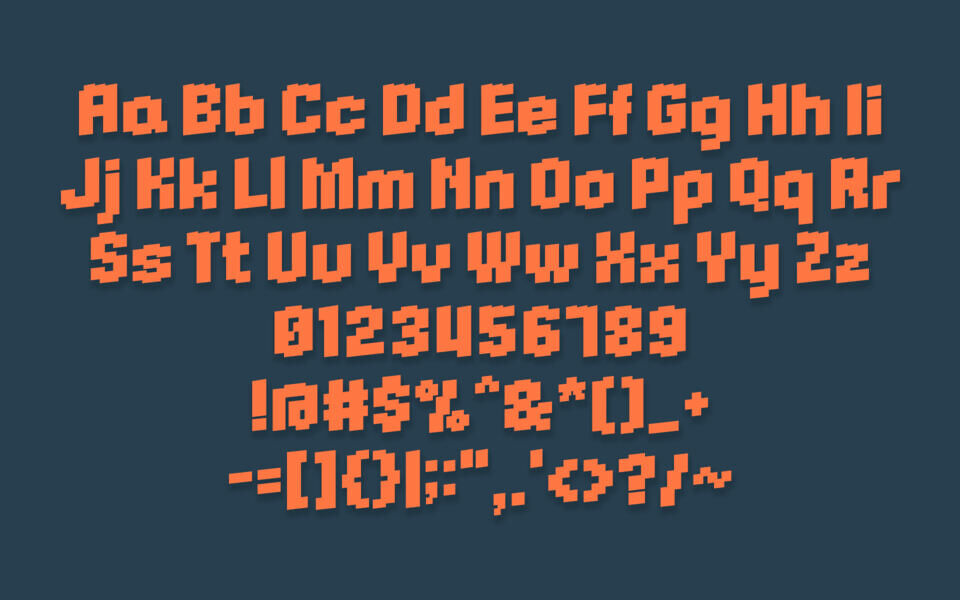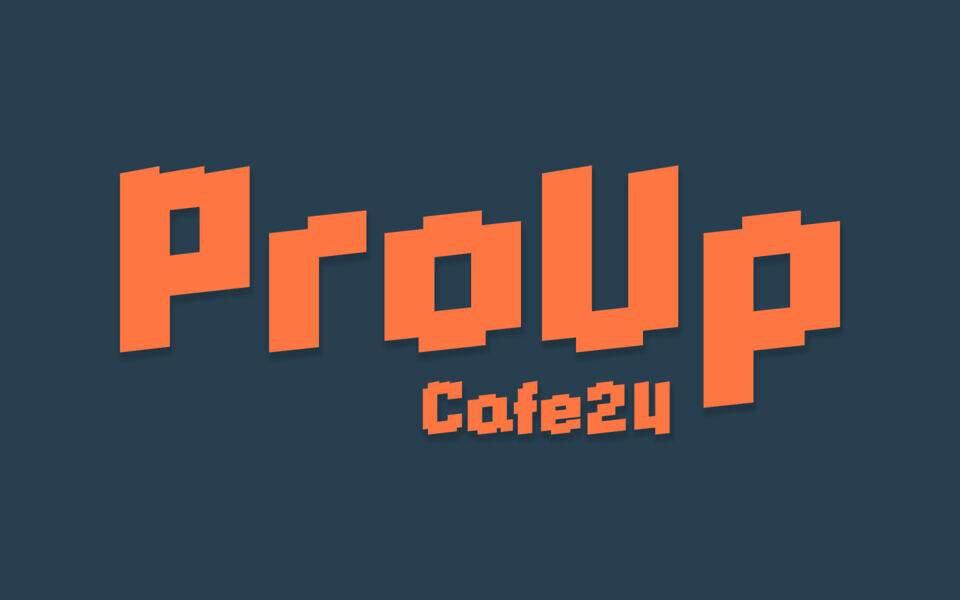
ProUp Font by Cafe24 is a bold, blocky display typeface inspired by pixel art and retro gaming aesthetics. With its sharp edges and geometric forms, it captures the charm of 8-bit and arcade-era visuals while remaining clean and modern.
The font features uniform stroke widths and a compact structure, making it ideal for titles, posters, games, or any design needing a nostalgic digital vibe. Despite its pixel-like style, ProUp maintains excellent readability and a playful yet sturdy presence across both uppercase and lowercase characters.